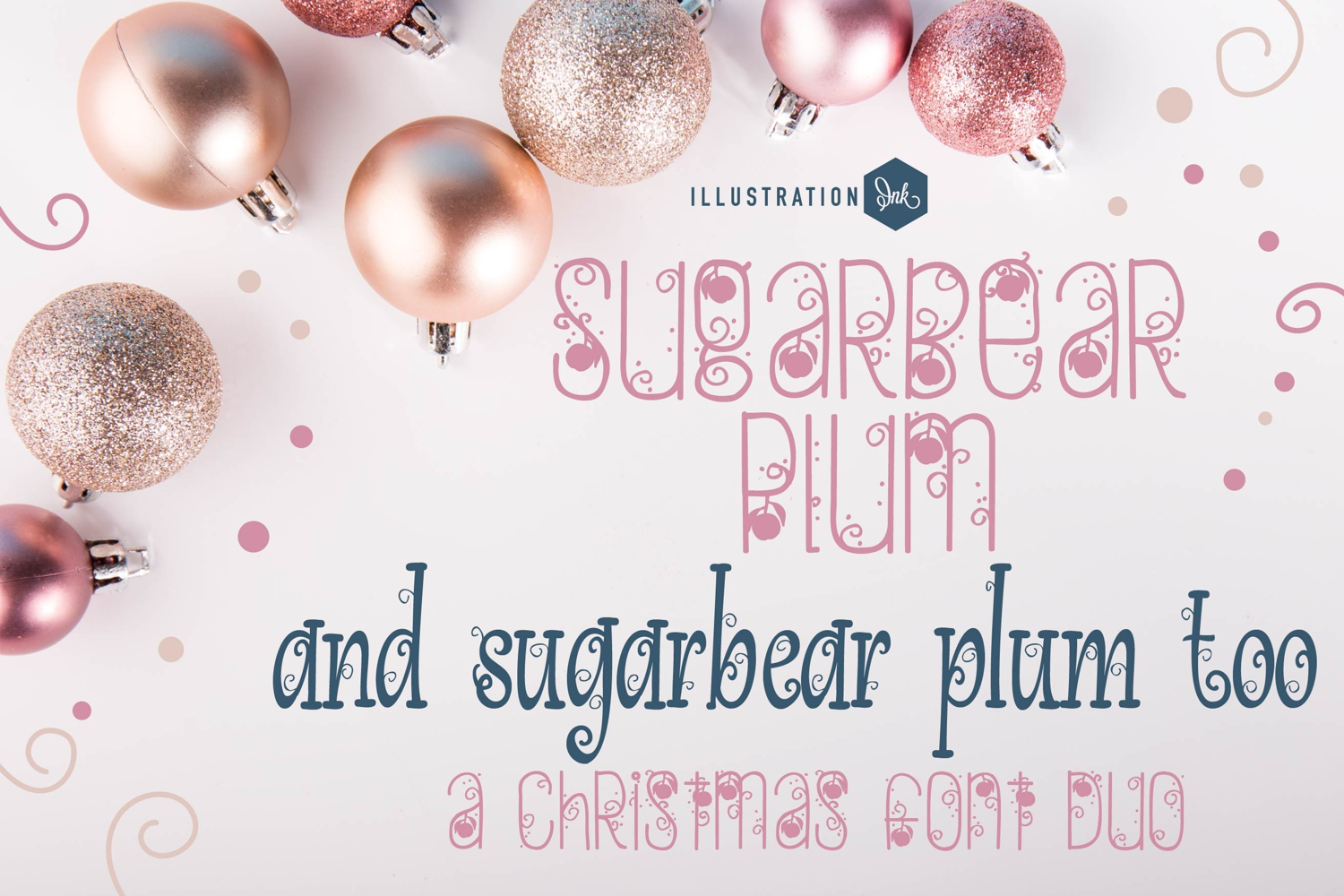
Sugarbear Plum Font Duo
This hand-crafted font duo combines a hand-crafted, sans serif font sporting curls and plums and a perfectly coordinated serif. Bonus tag dingbat font included! With all family members combined of the 2 fonts, you get 8 fonts all together!
Hand-crafted fonts can be either formal or informal, and they can be used for a variety of purposes. Some of the characteristics of handwritten fonts include: The letters are not perfectly uniform in size or shape. There may be slight variations in the spacing between letters and words. The font may have a "wiggly" or "squiggly" appearance. The font may be difficult to read at small sizes. Handwritten fonts can be a great way to add a casual touch to your designs. They can also be used to create a sense of nostalgia or whimsy. However, it is important to choose a handwritten font that is appropriate for the project you are working on. A formal handwritten font may not be appropriate for a casual invitation, while an informal handwritten font may not be appropriate for a corporate document.
• The letters are not perfectly uniform in size or shape.
• There may be slight variations in the spacing between letters and words.
• The font may have a "wiggly" or "squiggly" appearance.
• The font may be difficult to read at small sizes.